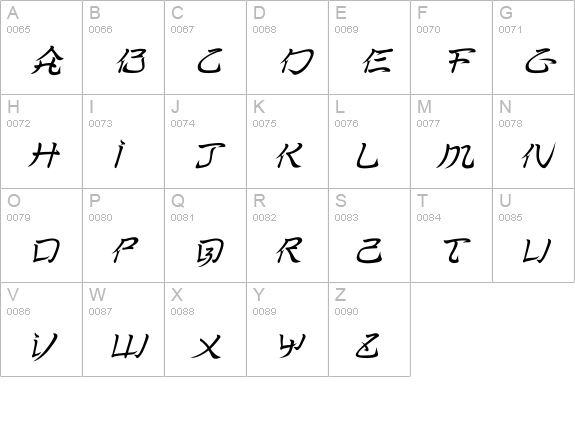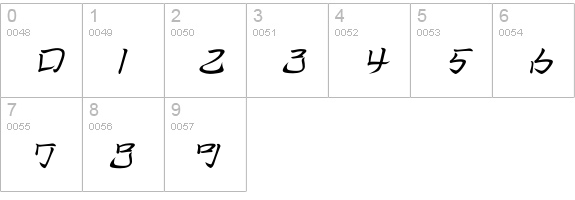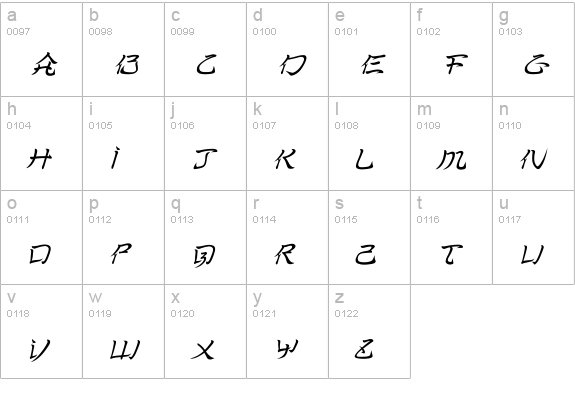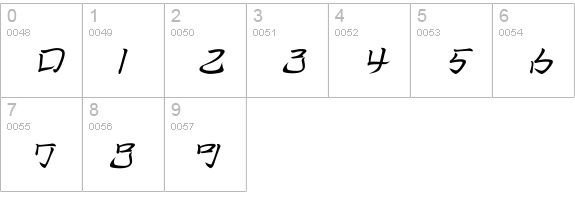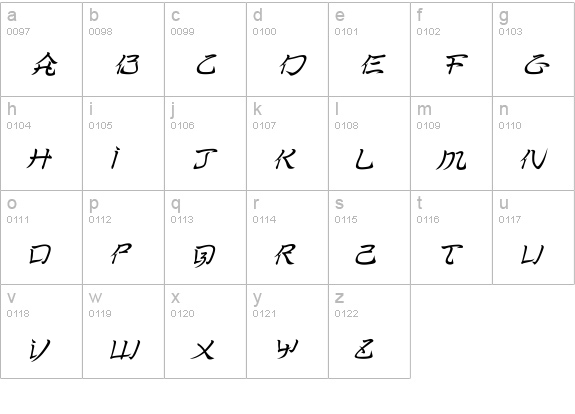
FCL-Thyroxine-Oblique Font Details
FCL-Thyroxine-Oblique is a distinctive, italic variant in the FCL typeface family \xE2\x80\x94 well suited to design and typography projects.
FCL-Thyroxine-Oblique font is a modern and stylish typeface designed to bring elegance and sophistication to your design projects. With its sleek and slanted letterforms, this font exudes a sense of dynamism and forward motion. Perfect for adding a touch of flair to any text, FCL-Thyroxine-Oblique font is versatile and can be used in a variety of design applications. This font is available as a free download at FontsMarket.com, making it easily accessible to designers and creatives looking to enhance their projects with a touch of sophistication. Whether you're working on branding materials, posters, websites, or any other design project, FCL-Thyroxine-Oblique font is sure to make a statement and elevate your work to the next level. Download this font today and bring a touch of modern elegance to your designs!